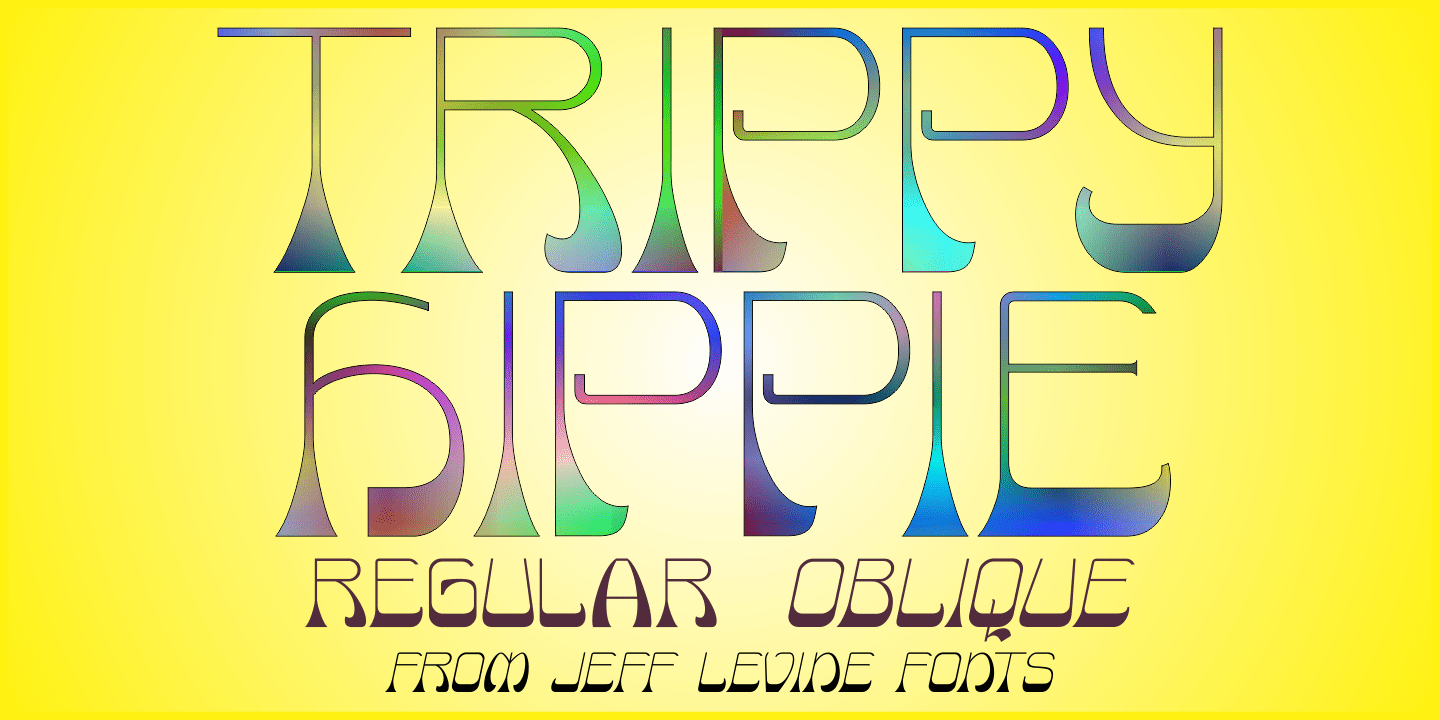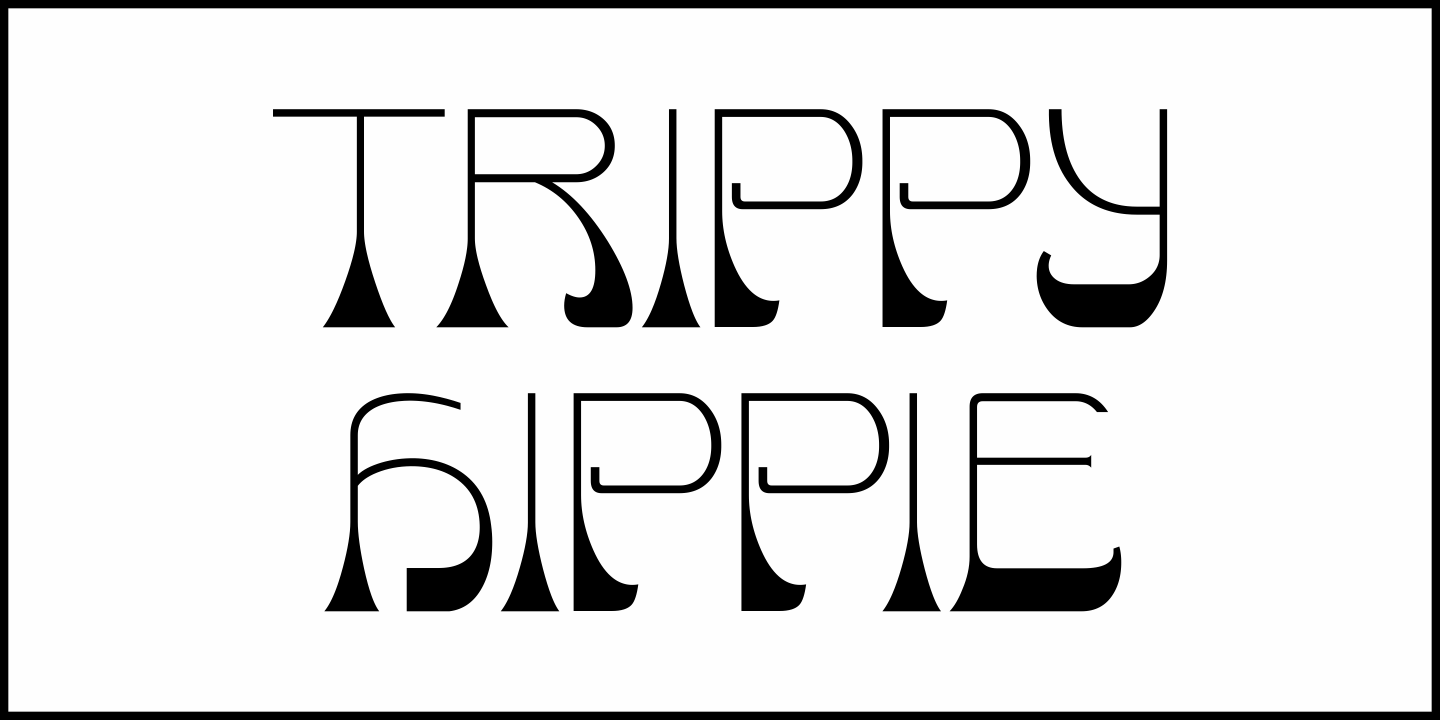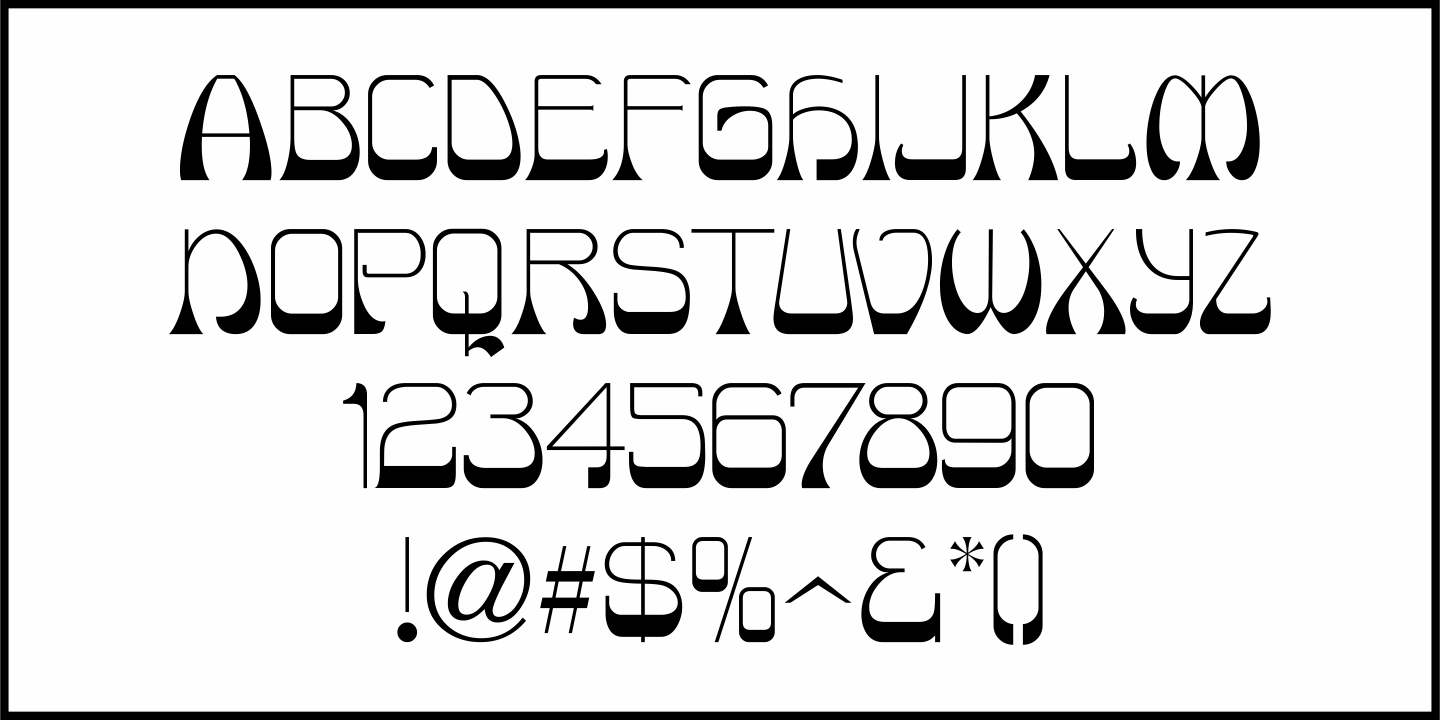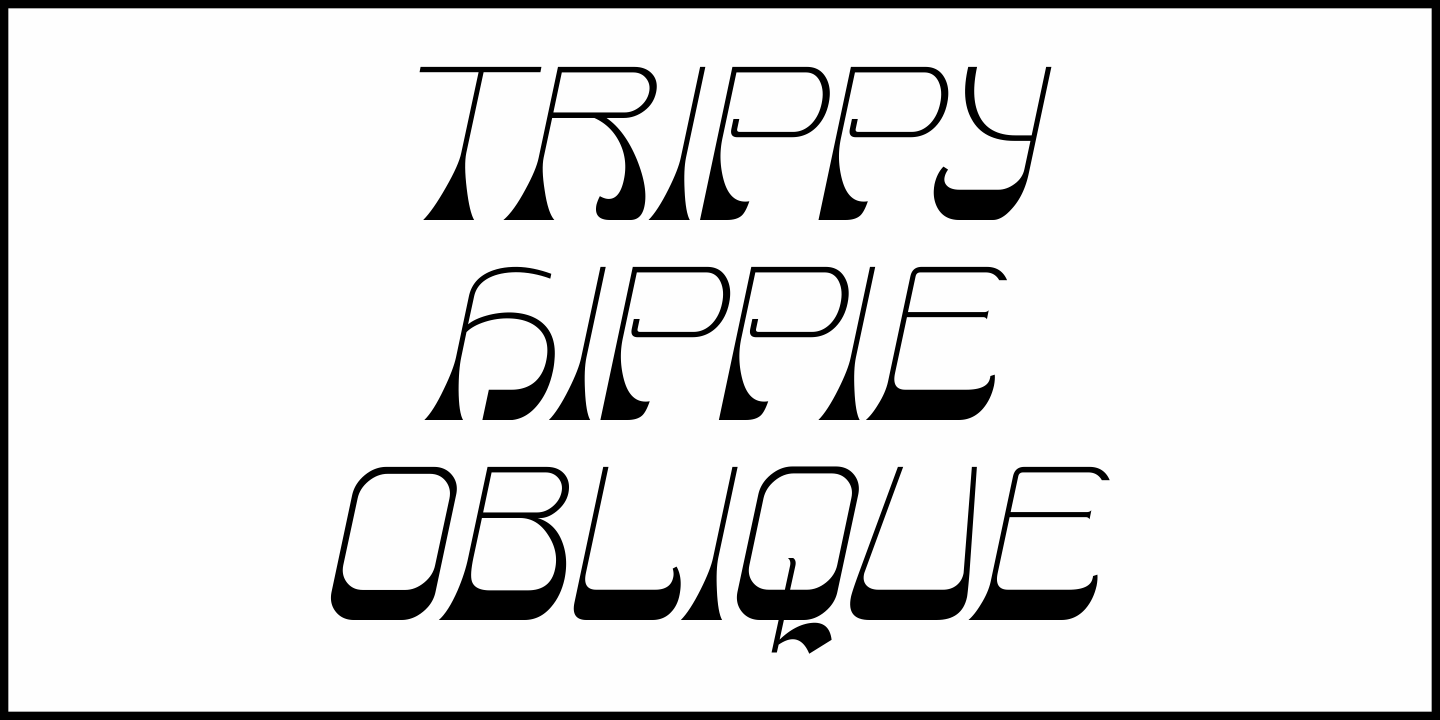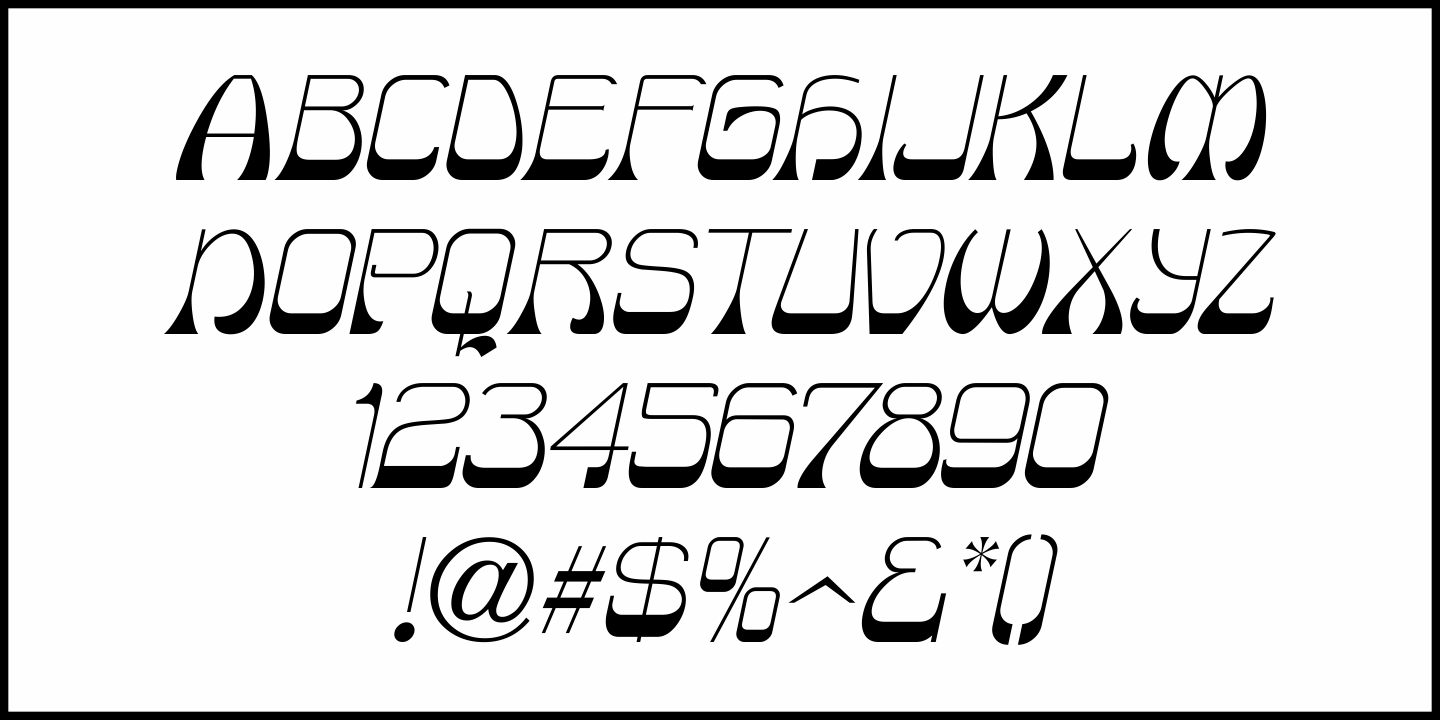
Trippy Hippie
Don’t let the name “Trippy Hippie JNL” fool you.
Although the type design fits well with the 1960s-70s hippie movement and the “love generation”, the design is actually straight out of a page from a vintage German lettering textbook entitled “50 Alphabete fur Technikur und Fachschulen” (loosely translated to “50 Alphabets for Technicians and Specialized Schools”).
The novelty, free form shapes and stroke weights of this hand lettered alphabet fits well in creating 1920s period pieces or for designing a retro-inspired rock and roll concert poster.
Trippy Hippie JNL is available in both regular and oblique versions.
Trippy Hippie by Jeff Levine Fonts